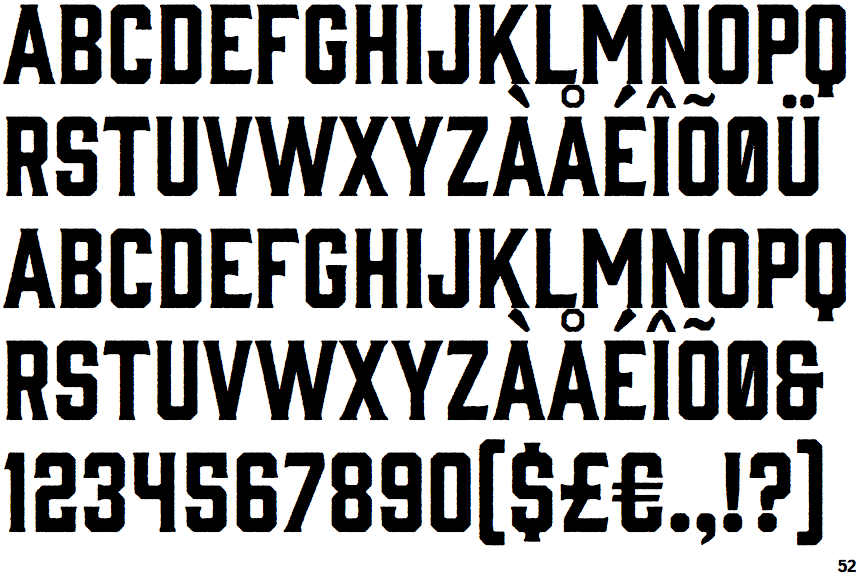
Gin Rough Font Free Download . Explore gin designed by mattox shuler at adobe fonts. Every font is free to download! This font is for personal use only! Gin font for the web site and photoshop in all styles. Like a brother to bourbon, gin is distilled from similar letterforms, but condensed less. Looking for rough gin fonts? This vintage display typeface was. Write in caps for decorative conjunction words. Gin font family is a vintage display typeface inspired by classic whiskey and gin bottles, designed for strong branding. Every font is free to download! A typeface with 2 styles, available from adobe fonts for sync and web use. Click to find the best 2 free fonts in the rough gin style. Click to find the best 3 free fonts in the gin style. Gin display font is a versatile family of fonts designed for strong, classic branding. This vintage display typeface was inspired by the likes of old serifs and classic bottles of whiskey and gin.
Click to find the best 2 free fonts in the rough gin style. Write in caps for decorative conjunction words. Every font is free to download! A typeface with 2 styles, available from adobe fonts for sync and web use. Explore gin designed by mattox shuler at adobe fonts. This font is for personal use only! Gin font family is a vintage display typeface inspired by classic whiskey and gin bottles, designed for strong branding. Gin font for the web site and photoshop in all styles. Gin display font is a versatile family of fonts designed for strong, classic branding. This vintage display typeface was.
Gin Rough Font Free Download Write in caps for decorative conjunction words. This vintage display typeface was inspired by the likes of old serifs and classic bottles of whiskey and gin. A typeface with 2 styles, available from adobe fonts for sync and web use. Gin font for the web site and photoshop in all styles. Write in caps for decorative conjunction words. This font is for personal use only! Like a brother to bourbon, gin is distilled from similar letterforms, but condensed less. This vintage display typeface was. Click to find the best 2 free fonts in the rough gin style. Explore gin designed by mattox shuler at adobe fonts. Every font is free to download! Gin font family is a vintage display typeface inspired by classic whiskey and gin bottles, designed for strong branding. Looking for rough gin fonts? Click to find the best 3 free fonts in the gin style. Gin display font is a versatile family of fonts designed for strong, classic branding. Every font is free to download!
Premium Vector Handcrafted 'dry gin' font with casks and decorations Gin Rough Font Free Download A typeface with 2 styles, available from adobe fonts for sync and web use. This font is for personal use only! Like a brother to bourbon, gin is distilled from similar letterforms, but condensed less. Gin font for the web site and photoshop in all styles. Looking for rough gin fonts? Click to find the best 3 free fonts in. Gin Rough Font Free Download.
Gin & Soda Font FREE Download & Similar Fonts FontGet Gin Rough Font Free Download Click to find the best 3 free fonts in the gin style. Looking for rough gin fonts? Gin font family is a vintage display typeface inspired by classic whiskey and gin bottles, designed for strong branding. This font is for personal use only! Gin font for the web site and photoshop in all styles. A typeface with 2 styles, available. Gin Rough Font Free Download.
Gin Font Free Download Gin Rough Font Free Download This font is for personal use only! Click to find the best 2 free fonts in the rough gin style. Gin font for the web site and photoshop in all styles. This vintage display typeface was. A typeface with 2 styles, available from adobe fonts for sync and web use. Like a brother to bourbon, gin is distilled from similar. Gin Rough Font Free Download.
Gin Fonts Fontspring Typography, Typeface, Vintage fonts Gin Rough Font Free Download Click to find the best 3 free fonts in the gin style. Gin font family is a vintage display typeface inspired by classic whiskey and gin bottles, designed for strong branding. Explore gin designed by mattox shuler at adobe fonts. Every font is free to download! This font is for personal use only! Like. Gin Rough Font Free Download.
Handcrafted 'Vintage Gin' font with casks and decorations, dusty Gin Rough Font Free Download Gin display font is a versatile family of fonts designed for strong, classic branding. This font is for personal use only! Explore gin designed by mattox shuler at adobe fonts. Gin font family is a vintage display typeface inspired by classic whiskey and gin bottles, designed for strong branding. Write in caps for decorative conjunction words. Looking for rough gin. Gin Rough Font Free Download.
Gin Rough Font Fontspring Gin Rough Font Free Download Every font is free to download! This font is for personal use only! Click to find the best 2 free fonts in the rough gin style. A typeface with 2 styles, available from adobe fonts for sync and web use. Explore gin designed by mattox shuler at adobe fonts. Gin display font is a versatile family of fonts designed for. Gin Rough Font Free Download.
Gin And Tonic Font Gin Rough Font Free Download Like a brother to bourbon, gin is distilled from similar letterforms, but condensed less. Gin font family is a vintage display typeface inspired by classic whiskey and gin bottles, designed for strong branding. Looking for rough gin fonts? Click to find the best 2 free fonts in the rough gin style. Explore gin designed by mattox shuler at adobe fonts.. Gin Rough Font Free Download.
GIN Rounded Windows font free for Personal Gin Rough Font Free Download Looking for rough gin fonts? This vintage display typeface was. Gin display font is a versatile family of fonts designed for strong, classic branding. Click to find the best 2 free fonts in the rough gin style. Gin font for the web site and photoshop in all styles. Gin font family is a vintage display typeface inspired by classic whiskey. Gin Rough Font Free Download.
Similar Fonts To Gin Fontspring Gin Rough Font Free Download This font is for personal use only! Gin font for the web site and photoshop in all styles. Looking for rough gin fonts? Gin display font is a versatile family of fonts designed for strong, classic branding. Every font is free to download! Like a brother to bourbon, gin is distilled from similar letterforms, but condensed less. Write in caps. Gin Rough Font Free Download.